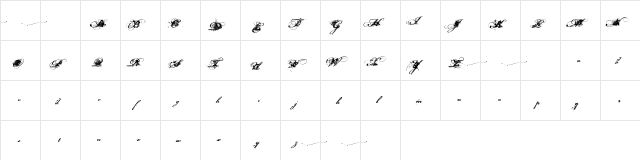
Dirty and Classic Regular
Design Context for Dirty and Classic Typeface
Dirty and Classic wears its vintage influences proudly, with letterforms that recall mid-century signage, classic packaging, and nostalgia-driven design.
Font Pairing: Combine Dirty and Classic with a simple slab or neutral sans — period-accurate companions reinforce the vintage feel without competing for attention.
Pro Tip: Use Dirty and Classic for headlines and pull quotes rather than body copy — its personality is best appreciated in short, focused bursts.